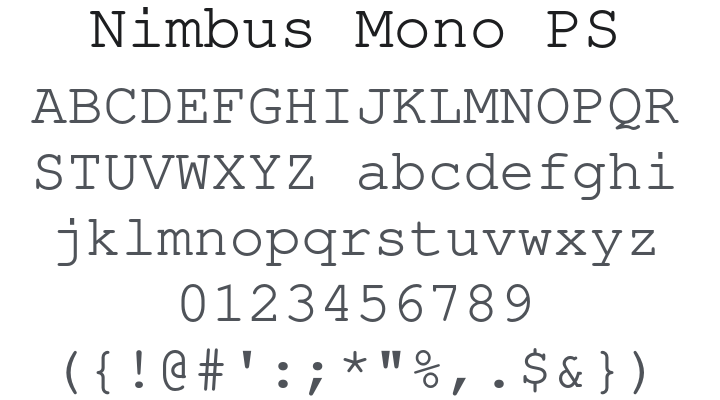
Nimbus Mono PS Font Family
by URW++
About Nimbus Mono PS
Nimbus Mono PS is a monospaced typeface from URW++ and part of the URW Base35 open-source font package, comprising 35 metrically compatible alternatives to the PostScript Level 2 core fonts. Designed as a free equivalent of Courier, it delivers the familiar fixed-width characteristics essential for code listings, terminal output, typewriter-style documents, and any context where consistent character spacing is required.